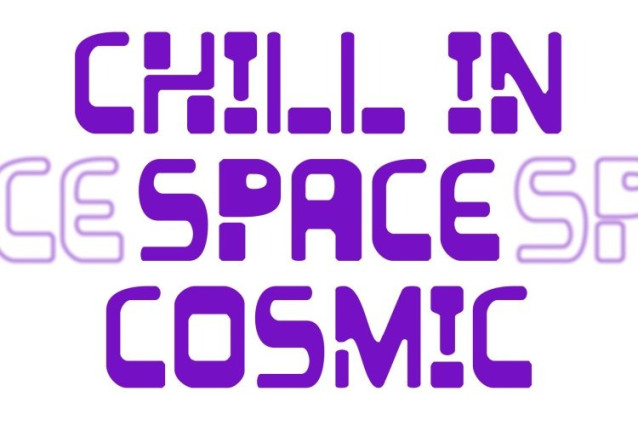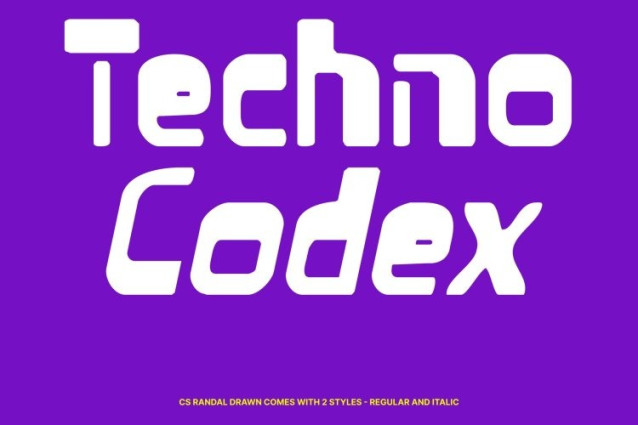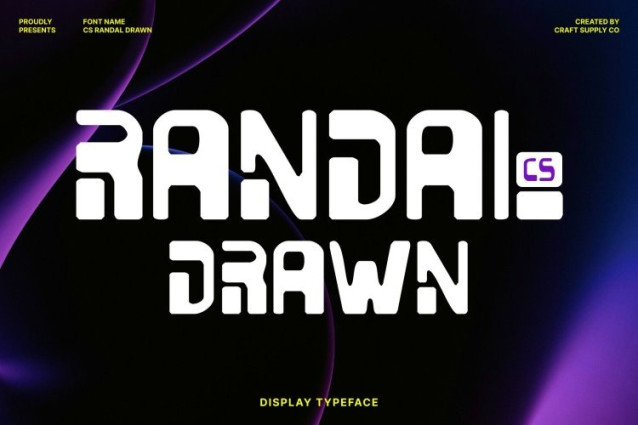
CS Randal Drawn Font
CS Randal Drawn Font This is a striking sans serif font rooted in brutalist design, enhanced with a hand-drawn texture that gives it an artistic, tactile quality. Its sharp edges, assertive forms, and rigid construction convey raw industrial power while the drawn effect adds a handcrafted depth, making each letter feel dynamic, alive, and uniquely expressive.
Sharp Geometry for Industrial Impact
Built with mechanical precision, its angular geometry evokes urban structures, concrete surfaces, and modernist architectural principles. The drawn texture subtly softens the harshness of the forms, adding visual interest and handcrafted charm without losing the font’s strong, industrial character. It’s perfect for designs that demand intensity, clarity, and bold visual authority.
Futuristic Brutalism with Contemporary Energy
While grounded in brutalist aesthetics, this font pushes forward with clean proportions, minimal contrast, and experimental balance. The fusion of industrial rigidity with a hand-drawn texture creates a progressive, modern rhythm, giving the font a futuristic edge that feels both raw and innovative.
Ideal for Editorial, Posters, and Graphic Design
This font excels in high-impact applications, from editorial layouts and posters to branding and conceptual visuals. Its combination of brutalist strength, futuristic precision, and artistic texture makes it perfect for headlines, logos, or any project that demands a commanding, modern, and visually dynamic typographic presence.